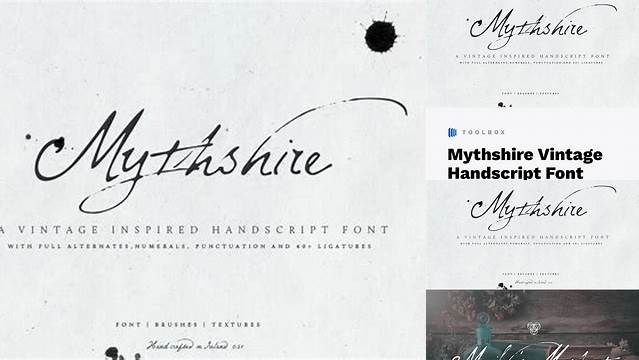
Free Mythshire Vintage Handscript Font: A Design Guide
Mythshire Vintage Handscript Font Free is more than just a typeface; it's a journey back in time, a nostalgic embrace of classic elegance, and a versatile tool for designers, creatives, and anyone with a penchant for beautiful typography. This article will dive deep into the enchanting world of Mythshire, exploring its unique features, its applications, and why it has become a favorite among design enthusiasts. We'll uncover the essence of its vintage charm, discuss how to best utilize it in your projects, and provide resources to effortlessly download and implement this stunning handscript font. So, buckle up, guys, as we embark on an exploration of a font that breathes life into your designs.
Unveiling the Allure of Mythshire Vintage Handscript
Mythshire Vintage Handscript Font captures the essence of a bygone era, evoking feelings of nostalgia, romance, and sophistication. Its carefully crafted letterforms mimic the fluidity and grace of handwritten scripts, adding a personal touch that is often missing in modern digital designs. The free availability of Mythshire makes it accessible to everyone, from seasoned professionals to budding designers experimenting with typography. Its vintage aesthetic is ideally suited for projects where a touch of classic charm is desired. Think of wedding invitations, vintage-inspired posters, elegant branding materials, and anything that calls for a sense of timelessness. The font's appeal lies in its ability to communicate a story, to transport viewers to a different place and time. It’s not just about the letters; it's about the feeling they evoke. Mythshire isn’t just a font; it’s a statement. It is an opportunity to inject personality and warmth into any design. The unique strokes and curves of each letter are designed to create a sense of cohesion and beauty. Designers and creators must be able to use it in the right way. The design process is a creative journey, a pursuit of perfection. And the perfection comes from the detail, and this font perfectly embodies those details. In the digital age, when so many things feel mass-produced, this font is like a breath of fresh air, bringing a sense of individuality and artisanship to your work. Each time you use it, you are not just using a font; you are celebrating the art of handwriting.
Mythshire's design is a testament to the beauty of imperfection, embracing the slight variations and unique characteristics that make handwritten scripts so captivating. This human touch is what sets it apart from many other digital fonts, which can often feel sterile and impersonal. The carefully considered details of each letter, from the elegant swashes to the subtle variations in stroke weight, contribute to its overall charm and appeal. It’s a font that invites closer inspection, encouraging viewers to appreciate the artistry and care that went into its creation. This is why Mythshire is not just a tool; it’s an experience. The font is designed to be easily readable, allowing you to communicate your message with clarity and elegance. It’s not about showing off; it’s about creating something beautiful and meaningful. This font gives you the power to create something that resonates with your audience, making them feel something, making them think. Mythshire is more than just a design element; it’s a means of expression, a vehicle for telling stories. Whether you're crafting a vintage-inspired logo, designing a sophisticated website header, or creating personalized stationary, Mythshire has the versatility to elevate your project. It's a font that encourages creativity, inspiring designers to experiment with different layouts, color schemes, and graphic elements to create unique and memorable designs. It's also very important for those who want to create authentic designs.
Applications and Creative Uses of Mythshire
Mythshire's versatility makes it a superb choice for a broad range of design applications. Its inherent elegance and classic charm lend themselves beautifully to various creative endeavors. Let's explore some of the most popular and effective ways to use this free font, from branding to web design and beyond. You can give a new aspect to everything. Imagine the possibilities! You can use Mythshire Vintage Handscript for creating brands, posters, and a whole range of products. It’s an opportunity to showcase your creativity.
Branding and Logos: The handscript style of Mythshire instantly adds a personalized touch to branding projects. It's perfect for creating logos, especially for businesses seeking a vintage, artisanal, or handcrafted aesthetic. Think of boutique shops, coffee houses, bakeries, and other ventures that aim to convey a sense of authenticity and care. The font’s unique character makes a memorable and distinct brand identity. Remember the value of your brand. Mythshire can help you to show your brand in a unique way.
Wedding Invitations and Stationery: There's a timeless elegance to Mythshire that makes it an ideal choice for wedding invitations, save-the-dates, and other stationery. The graceful letterforms and vintage appeal can create a romantic and memorable impression, setting the tone for a couple's special day. It’s an opportunity to create a memorable keepsake. Wedding season is a great opportunity to use this font.
Posters and Flyers: Mythshire is a great choice for creating eye-catching posters and flyers. Its distinctive style can help your message stand out, whether you're promoting an event, an offer, or a new product. The font's versatility allows you to experiment with different layouts, color schemes, and graphic elements to create a unique and memorable design. You can create flyers for a business that creates a sense of authenticity.
Web Design: In web design, Mythshire can be used for headings, titles, and even short passages of text to add a touch of personality to your website. Its readability makes it a good option, ensuring that your content is easily accessible and enjoyable for visitors. It’s a design element. The font is easy to read, so use it in the right places. It makes your website more attractive.
Social Media Graphics: With the rise of social media, Mythshire has become increasingly popular for creating engaging graphics. It's perfect for designing quotes, announcements, and promotional materials that capture your audience's attention and add a touch of sophistication to your social media presence.
Packaging Design: If you're working on product packaging, Mythshire can help you create a premium feel for your product, conveying a sense of quality and care. It's especially effective for artisanal products, such as soaps, candles, and other handcrafted goods.